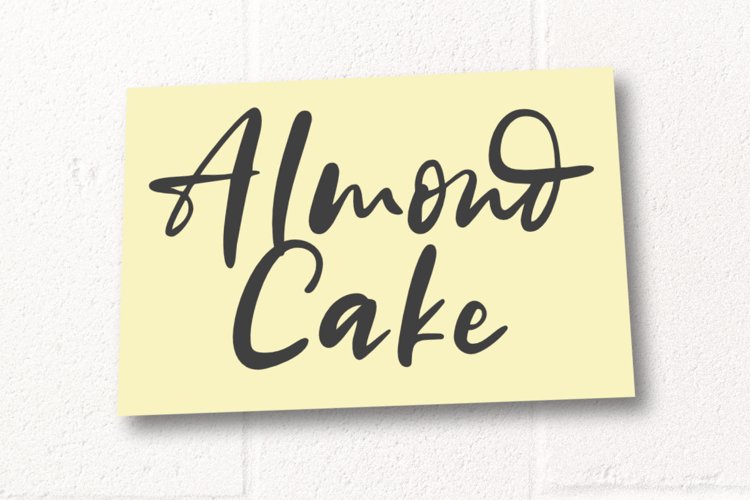
Almond Cake is a sweet and friendly handwritten font. Its natural and unique style makes it incredibly fitting for a large pool of designs.
Almond Cake